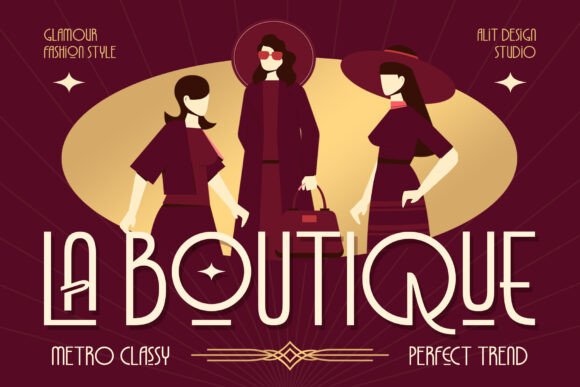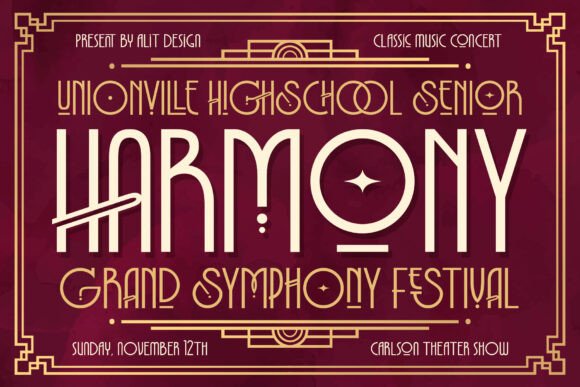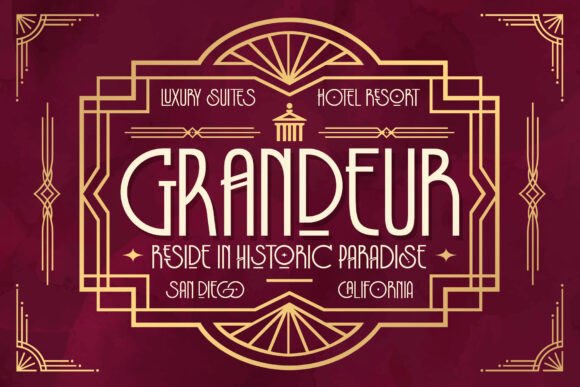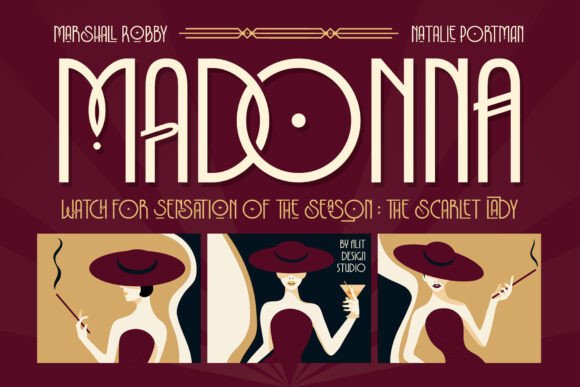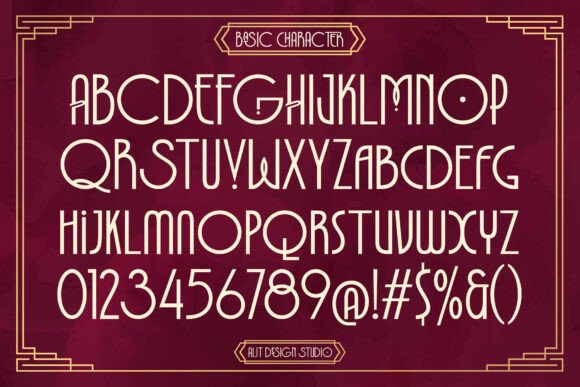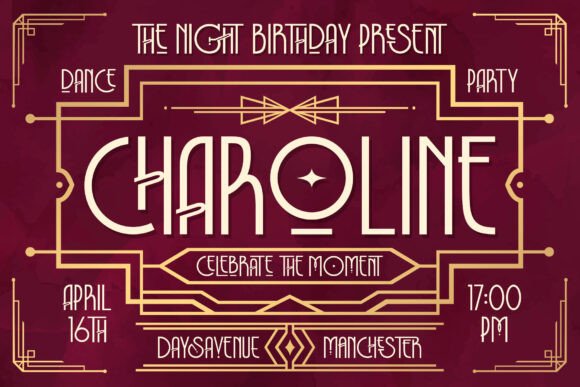
Introducing Decofun Typeface: A Modern Art Deco Masterpiece
In the world of typography, few styles have captivated designers and crafters like the timeless Art Deco aesthetic. With its luxurious feel, geometric shapes, and bold lines, Art Deco has been a staple of high-end design for nearly a century. Now, imagine infusing that classic glamour into your modern projects with a font that redefines the boundaries of creativity. Welcome to Decofun Typeface, a vibrant celebration of modern Art Deco aesthetics, meticulously designed to bring a touch of timeless sophistication and bold creativity to your projects.
The Art Deco Revival
Art Deco, short for “Arts Décoratifs,” emerged in the 1920s as a response to the ornate and heavy styles that preceded it. Characterized by its use of geometric shapes, metallic materials, and bold lines, Art Deco embodied the glamour and luxury of the Roaring Twenties. From iconic skyscrapers to exquisite jewelry, Art Deco’s influence permeated every aspect of design. Fast-forward to today, and Decofun Typeface brings that same level of sophistication and elegance to your digital and print projects.
Decofun Typeface: A Modern Twist on a Classic Style
Decofun Typeface is more than just a font – it’s an experience. With its unique and dynamic shapes, Decofun reimagines the glamour of the Art Deco era in a contemporary form. This carefully crafted typeface combines the sophistication of Art Deco with the playfulness of modern design, making it the perfect choice for striking headlines, logos, invitations, and more. Whether you’re a designer looking to elevate your branding or a crafter seeking to add a touch of elegance to your DIY projects, Decofun Typeface is the ultimate tool for creative expression.
Key Features of Decofun Typeface
- Unique and Dynamic Shapes: Decofun Typeface boasts a distinctive set of shapes that blend geometric and organic forms, creating a truly one-of-a-kind visual experience.
- Timeless Sophistication: Inspired by the luxury and glamour of Art Deco, Decofun Typeface exudes a sense of refinement and poise, perfect for high-end branding and design projects.
- Bold Creativity: With its bold lines and striking shapes, Decofun Typeface is designed to make a statement, adding a touch of drama and flair to your designs.
- Versatility: From headlines and logos to invitations and packaging, Decofun Typeface is an incredibly versatile tool that can be used across a wide range of design applications.
Why Choose Decofun Typeface?
In a world where design trends come and go, Decofun Typeface stands out as a timeless and versatile solution for designers and crafters. Here are just a few reasons why Decofun Typeface should be your go-to font:
- Elegance and Sophistication: Decofun Typeface brings a level of sophistication and elegance to your designs, elevating your brand or project to new heights.
- Creativity Unleashed: With its unique shapes and bold lines, Decofun Typeface gives you the creative freedom to experiment and push the boundaries of design.
- Easy to Use: Decofun Typeface is designed to be user-friendly, making it easy to integrate into your design workflow.
Design and Craft Applications
Decofun Typeface is an incredibly versatile font that can be used across a wide range of design and craft applications, including:
- Branding and Logo Design: Create striking logos and brand identities that exude sophistication and elegance.
- Print Design: Elevate your print designs, including brochures, flyers, and posters, with Decofun Typeface’s bold and eye-catching style.
- Digital Design: Add a touch of glamour to your digital projects, including websites, social media graphics, and email marketing campaigns.
- Crafting and DIY: Use Decofun Typeface to add a professional touch to your crafting and DIY projects, including handmade cards, invitations, and decorations.
Decofun Typeface is a game-changing font that brings the timeless sophistication and bold creativity of Art Deco to your modern design projects. With its unique and dynamic shapes, Decofun Typeface is the perfect choice for designers and crafters looking to elevate their branding, print design, digital design, and crafting projects. Experience the luxury and glamour of Art Deco like never before with Decofun Typeface – the ultimate tool for creative expression.